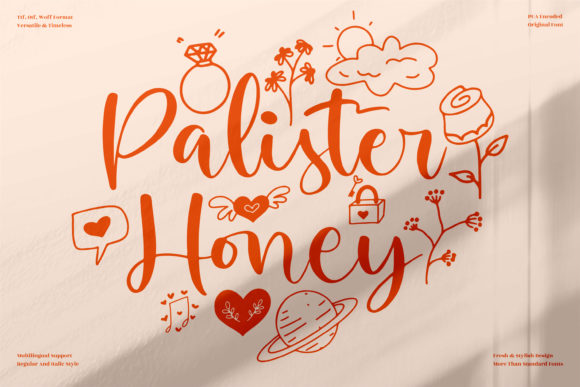
Introducing Palister Honey – the font that will add a touch of grace and sophistication to your next design project. This stunning script font features elegant curves, delicate swashes, and a natural flow that will make your words dance off the page.
Indulge in the beauty of Palister Honey's carefully crafted glyphs and ligatures, accessible with ease thanks to its PUA encoding. Experiment with a range of styles, from playful and whimsical to formal and refined, to find the perfect match for your creative vision.
Whether you're crafting a website header that demands attention, designing a heartfelt invitation, or adding a touch of elegance to your social media posts, Palister Honey will elevate your words to new heights. Its versatility knows no bounds, making it the perfect choice for a wide array of projects.
With Palister Honey at your fingertips, you'll unlock endless possibilities for self-expression. Embrace the power of this captivating font to create designs that resonate with your audience, leaving a lasting impression that lingers in their hearts and minds.